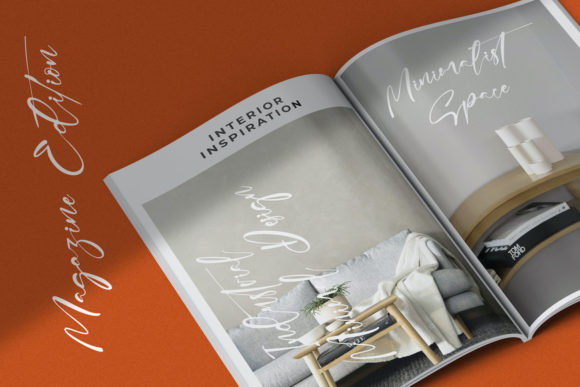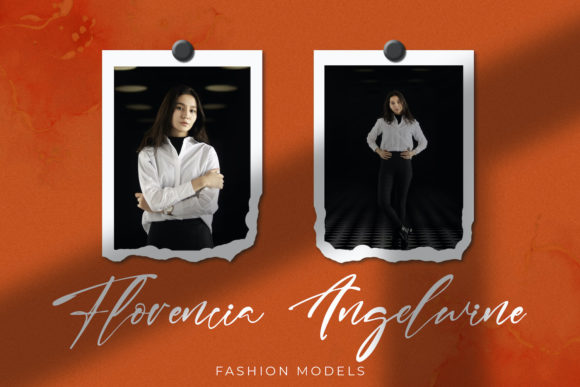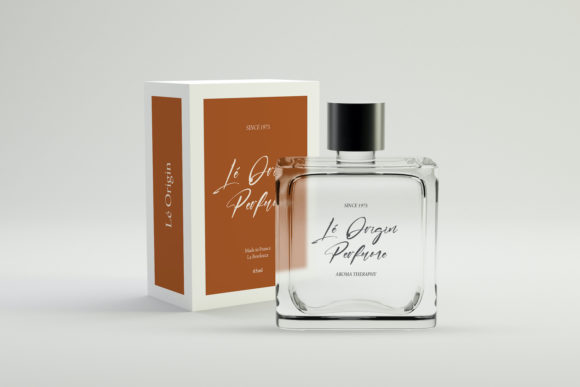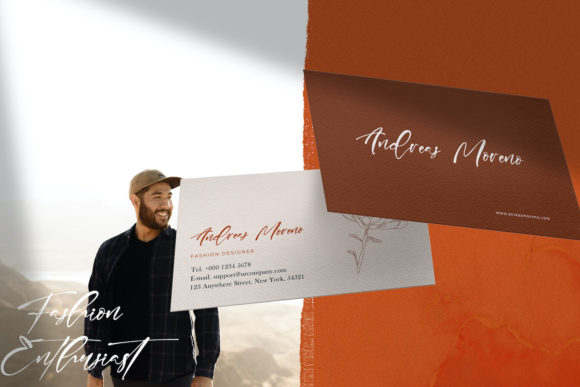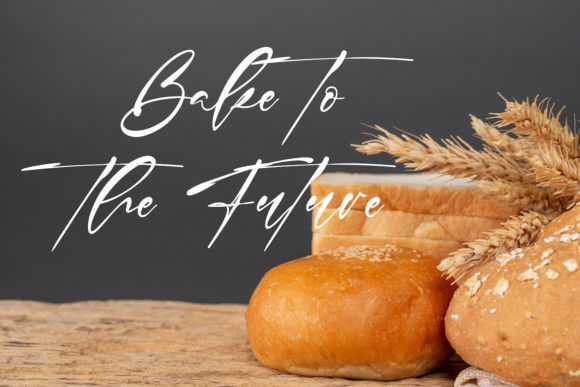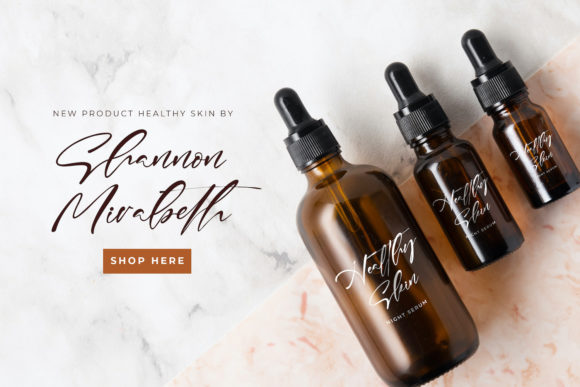
Discover the Elegance of Angelina Rachmi Font: Elevate Your Designs to New Heights
Are you on the hunt for a font that exudes sophistication, elegance, and a touch of modern flair? Look no further than the Angelina Rachmi font, a stunning handwritten typeface that is sure to capture your heart. Designed with meticulous attention to detail, Angelina Rachmi seamlessly blends classic calligraphic influences with a contemporary twist, making it the perfect addition to your design arsenal.
The Beauty of Angelina Rachmi: A Perfect Blend of Classic and Modern
Angelina Rachmi is more than just a font – it’s an exquisite piece of art that will elevate your projects to new heights. Its classy calligraphic roots are evident in its fluid strokes and elegant letterforms, yet it feels refreshingly modern and versatile. Whether you’re working on a branding project, crafting a beautiful wedding invitation, or designing a captivating poster, Angelina Rachmi is the perfect choice.
What Makes Angelina Rachmi Stand Out?
- Unique Character: Each letter in the Angelina Rachmi font is carefully crafted to ensure that it stands out from the crowd. Its distinctive character is sure to leave a lasting impression on your audience.
- Versatility: Whether you’re designing for digital platforms or print, Angelina Rachmi adapts effortlessly to any medium, making it a valuable asset in your design toolkit.
- Elegance and Sophistication: The font’s elegant strokes and refined appearance make it perfect for projects that demand a high level of sophistication and class.
- Easy to Read: Despite its intricate design, Angelina Rachmi remains highly legible, ensuring that your message is communicated clearly and effectively.
How to Use Angelina Rachmi in Your Projects
Integrating Angelina Rachmi into your design workflow is straightforward. Here are a few ideas to get you started:
- Branding and Logos: Use Angelina Rachmi to create a memorable logo or to develop a cohesive brand identity that speaks to elegance and refinement.
- Wedding and Event Stationery: Add a touch of sophistication to your wedding invitations, thank you cards, and event signage with this beautiful font.
- Digital and Print Media: From social media graphics to magazine headers, Angelina Rachmi can enhance any design project with its unique charm.
Tips for Getting the Most Out of Angelina Rachmi
To truly make Angelina Rachmi shine in your designs, consider the following tips:
- Pair it Wisely: Combine Angelina Rachmi with a simple sans serif font for contrast and visual interest.
- Play with Sizes: Use varying font sizes to create a hierarchy of information and add depth to your design.
- Experiment with Colors: While Angelina Rachmi looks stunning in black, don’t be afraid to experiment with colors that match your brand’s palette or the mood of your project.
Angelina Rachmi is more than just a font – it’s a design statement. With its exquisite craftsmanship, elegant appearance, and versatile nature, it’s poised to become your go-to typeface for projects that demand a touch of class and sophistication. Whether you’re a professional designer or a crafting enthusiast, Angelina Rachmi invites you to explore new creative horizons and bring your projects to life in a way that’s both beautiful and impactful.